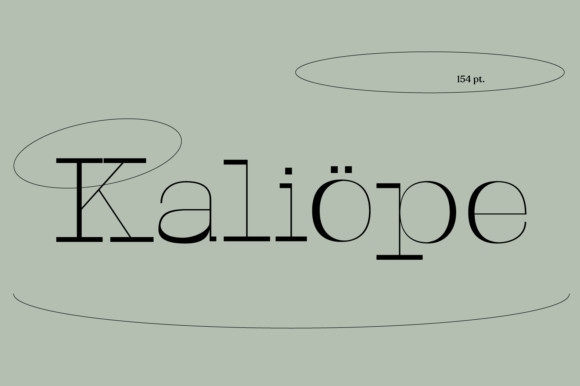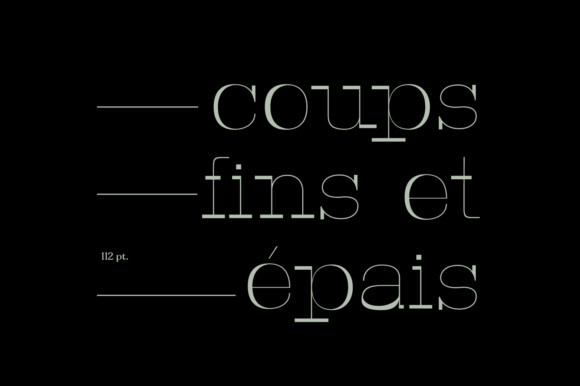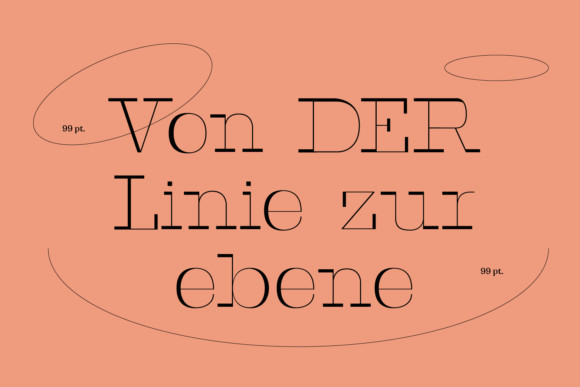
Kaliope Font
Kaliope is a simple and casual serif font with an undeniably clean feel. With its neat and beautiful arrangement of letters, this typeface will look outstanding in both formal and non-formal designs.